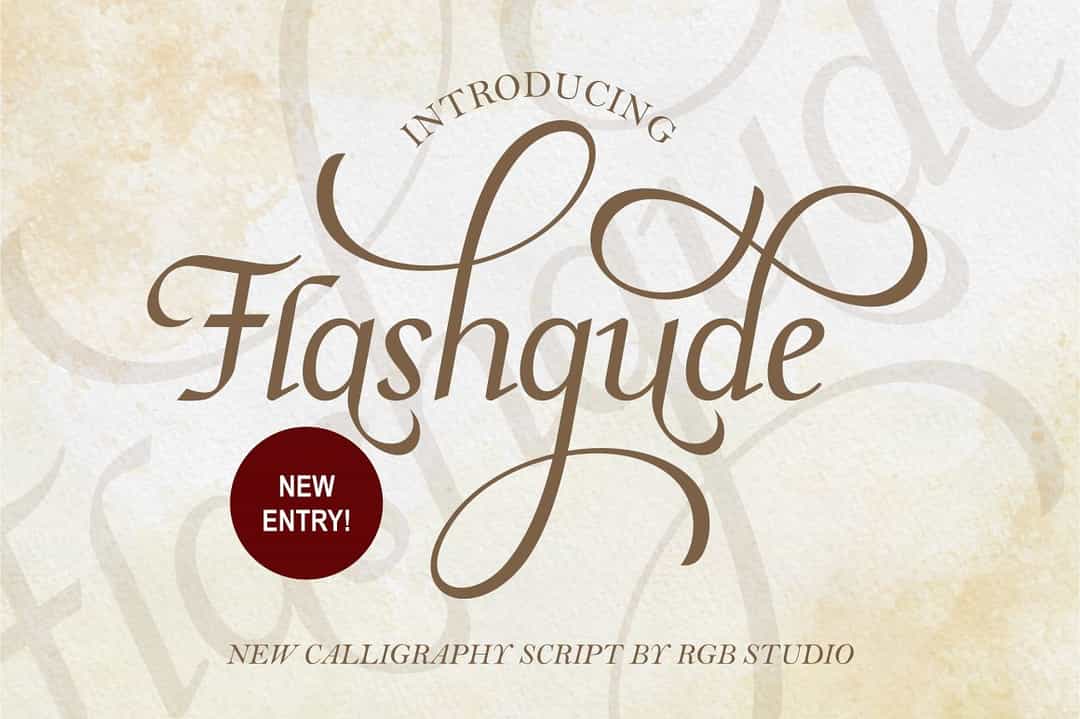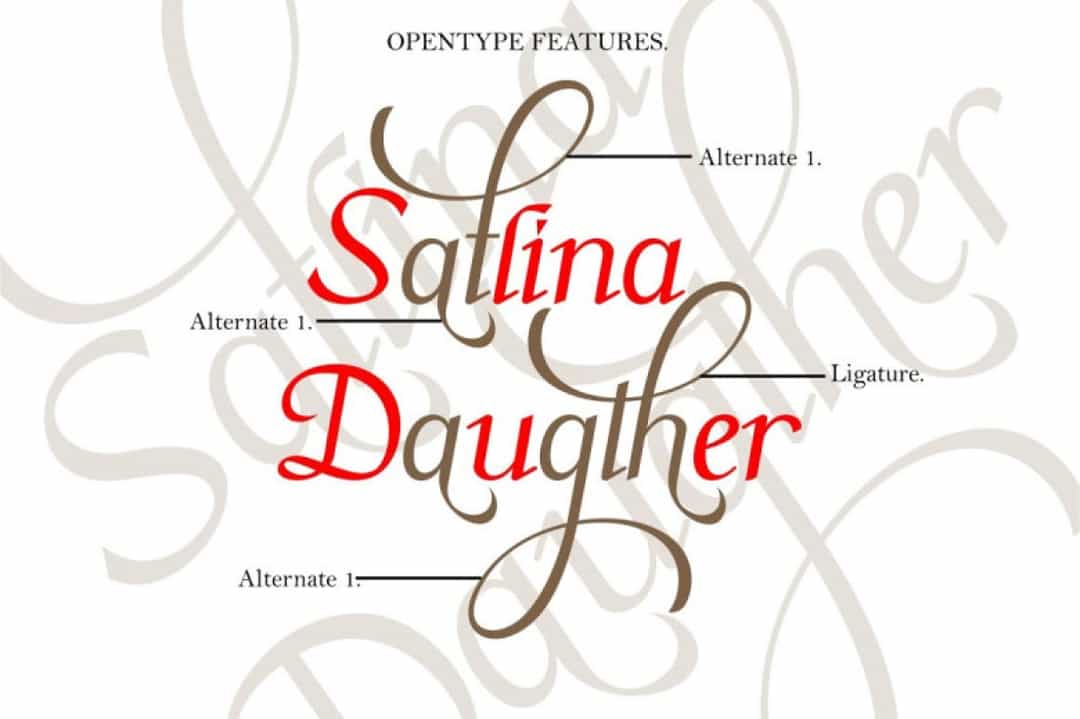
Discover Flashgude Font, part of the Calligraphy collection—a versatile and unique font perfect for adding a personal touch to your projects. Download it for free and enjoy crafting designs with style, from invitations to social media posts. This font is available exclusively for personal use, giving you the freedom to create without limits. Unlock your creativity with Flashgude Font today!
Flashgude can be best described as an innovative, modern and fresh calligraphy script font with an elegant calligraphy style. It makes an excellent font choice for artistic endeavors – invitation cards, greeting cards and posters featuring this beautiful typeface look stunning when displayed at parties! Plus many more!